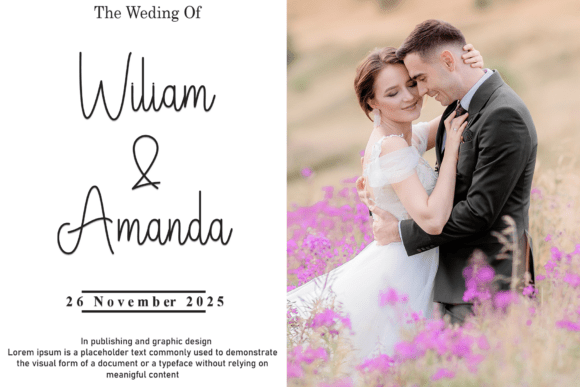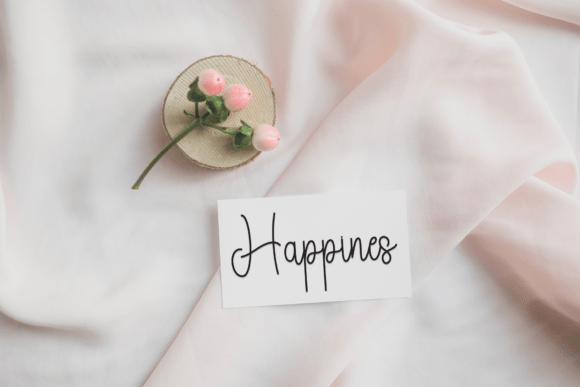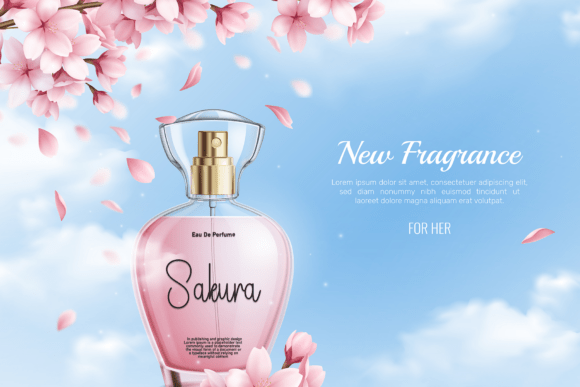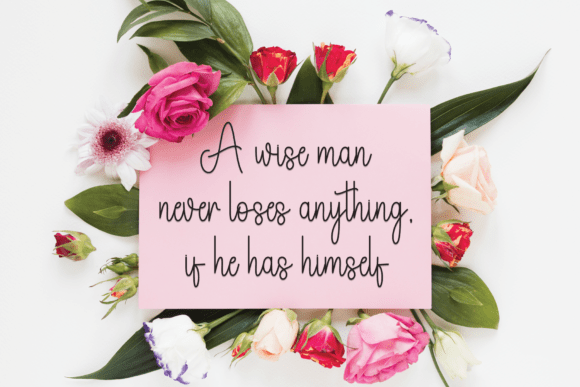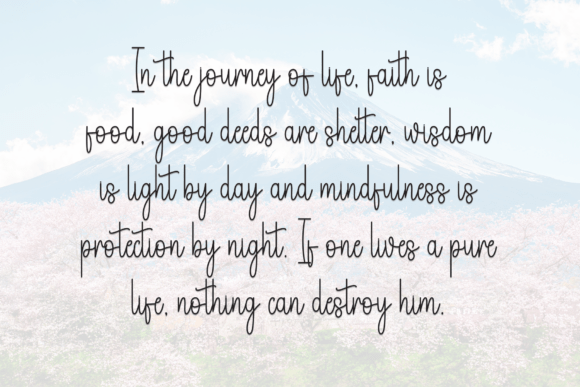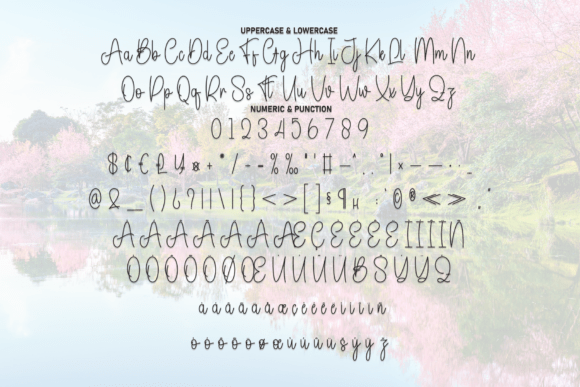
The Joy of Beautiful Font: A Delightful Handwritten Display Font
I’ll never forget the moment I stumbled upon Beautiful Font while working on a wedding invitation project for a dear friend. I had tried countless fonts, but none seemed to capture the whimsical, playful vibe I was going for. That was until I laid eyes on Beautiful Font – a delightful and jovial handwritten display font that exuded an air of charm and friendliness. It was love at first sight! 💕
Beautiful Font has become a staple in my design toolkit, and here’s why:
- ✨ Whimsical and playful: This font embodies the perfect blend of fun and sophistication, making it ideal for wedding invitations, greeting cards, and other projects that require a pinch of joy.
- ✅ Ease of use: The font is incredibly easy to work with, even for those who are new to design or typography.
- 💫 Versatility: Beautiful Font can be used for a wide range of projects, from digital designs to print materials.
However, I do want to mention a few quirks:
- 🤔 Limited use in body text: While Beautiful Font is stunning as a display font, it may not be the best choice for body text due to its playful, cursive nature.
- ⚠️ Glyph limitations: Some users may find that the font’s glyph library is not as extensive as they’d like, which can limit its use in certain design projects.
The Story Behind Beautiful Font
Beautiful Font was designed with one goal in mind: to create a font that would bring joy and whimsy to design projects. Inspired by the elegance of handwritten scripts and the playfulness of modern typography, Beautiful Font is the perfect blend of fun and sophistication. Whether you’re a designer, crafter, or creative hobbyist, this font is sure to delight your audience and infuse your designs with pure joy.
| Font Name | Beautiful Font |
| What is Beautiful Font best used for? | Beautiful Font is perfect for wedding invitations, greeting cards, and any projects requiring a pinch of fun and whimsy. |
| Is Beautiful Font available in other languages? | Beautiful Font may not support all languages, but it does include some basic glyphs and diacritical marks. |